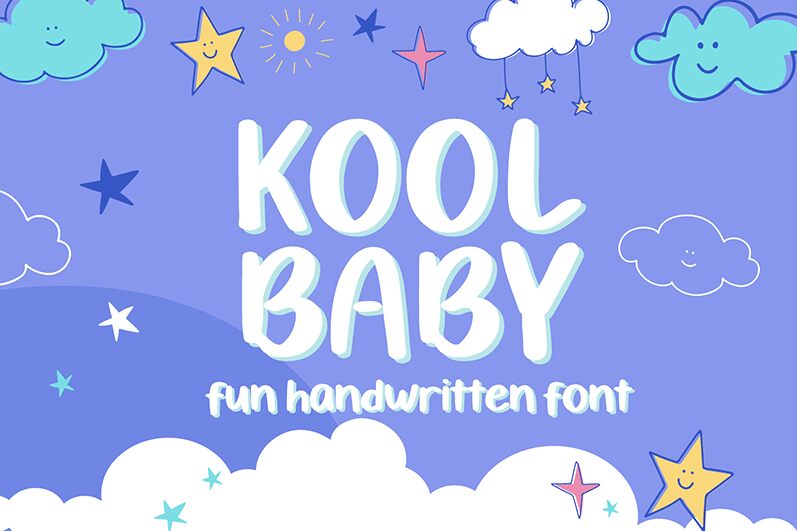
Introducing Kool Baby, a bold handwritten font designed by Muhammad Hisyam Rivai. This eye-catching font is perfect for creating attention-grabbing titles and logos on posters, flyers, website headers and social media posts. It also works great for crafting stylish invitations and greeting cards.